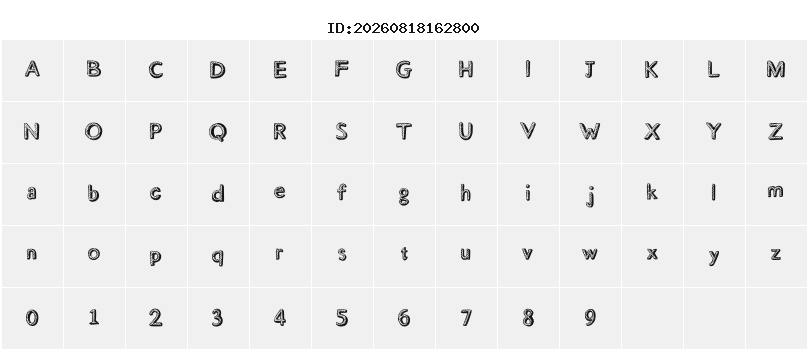
Slavonian Casablancas Preview
• Font Name: Slavonian Casablancas
• Full Font Name: Slavonian Casablancas Medium
About Slavonian Casablancas.ttf
Slavonian Casablancas.ttf is a modern, elegant sans-serif font designed for ultimate readability and visual harmony. Perfect for branding, headlines, web design, and print materials.